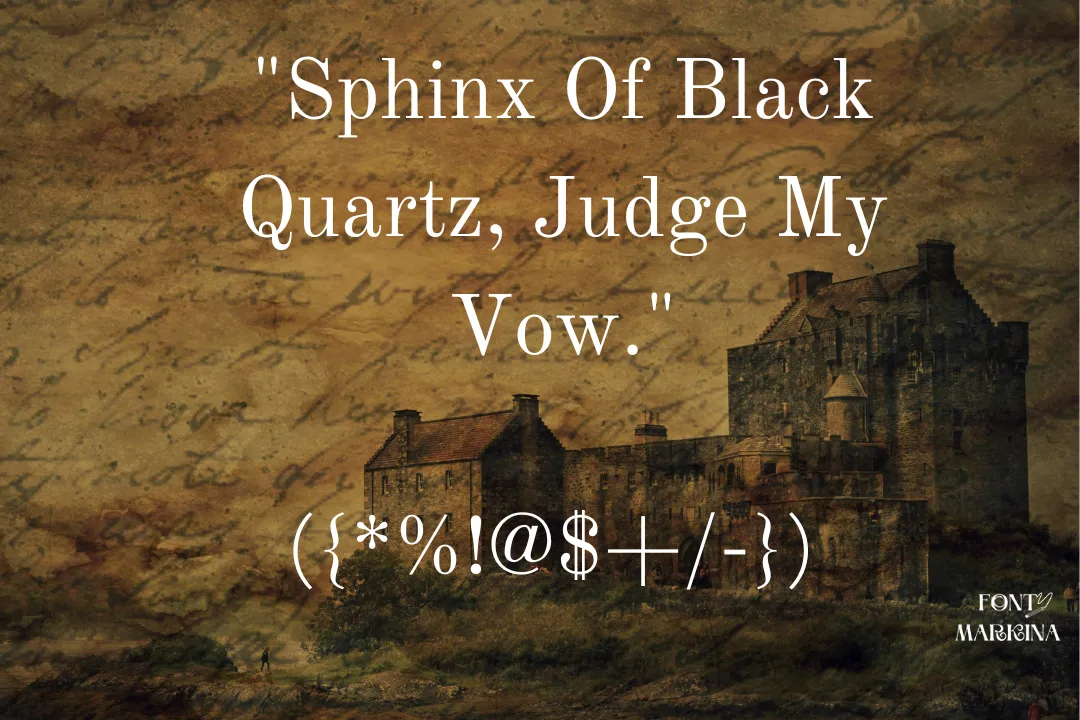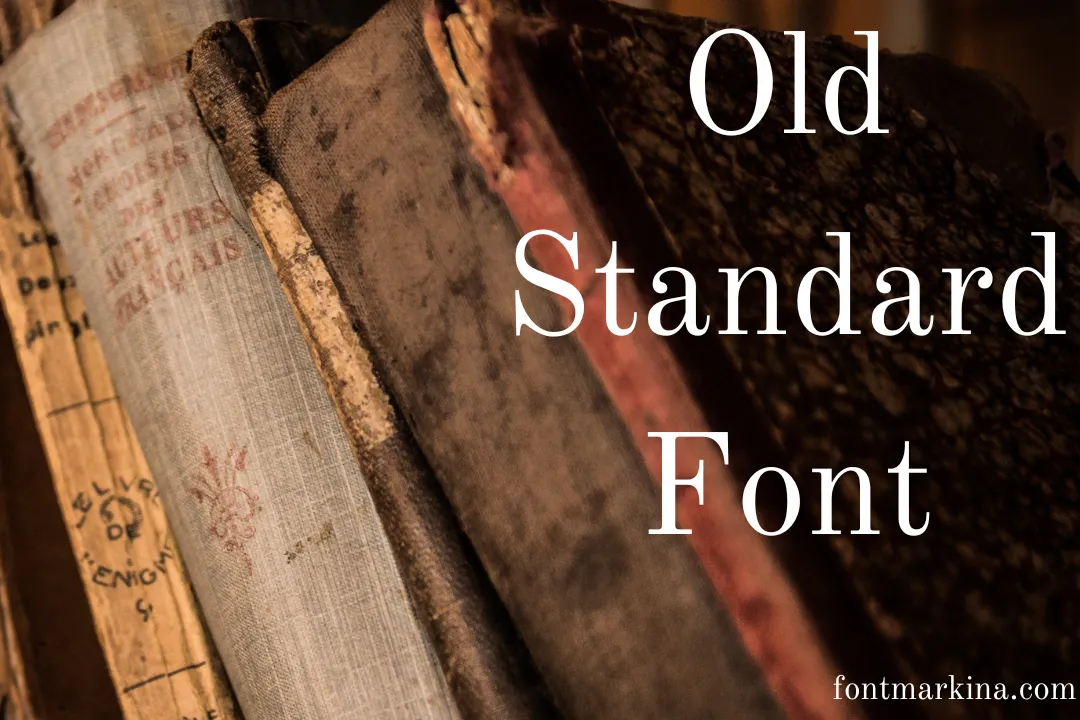
Alexey Kryukov designed this excellent and stunning typeface. This texture is known as the name of Old Standard Font. It has a very smart and eye-catching surface look impression for the viewers. This font style looks like a modern serif typeface family.
Uses of Old Standard Font
This typeface has a very awesome texture that can be used for multiple tasks and projects. Old Standard Font is one of the best typefaces for Youtubers, many people use it in our youtube titles, Instagram bio descriptions, and much more.
It is very unique for creating website designs, social media posts, and famous posters. If you will use this typeface in your projects, then you can create amazing designs, presentations, titlings, articles, postcards, general reports, game designs, and logo designing.
This typeface can be utilized for t-shirt designing, product titlings, postcard designs, and homeware designs, You can also use it for Canva, Adobe Photoshops, and many other typefaces.
| Name | Old Standard Font |
| Designer | Alexey Kryukov |
| Style | Serif |
What type of font is Old Standard Font
This wonderful typeface is under the category of the Serif typeface family. It has very amazing texture look appearance that can make your design look more impressive to the watchers.